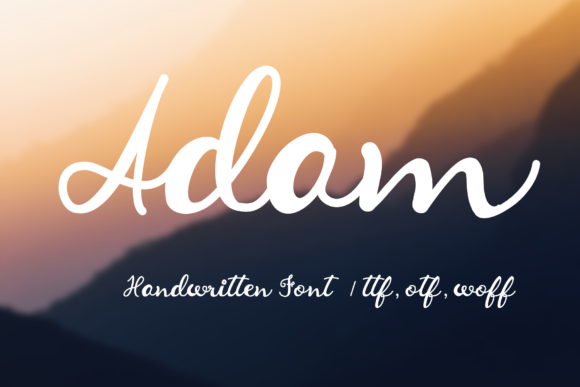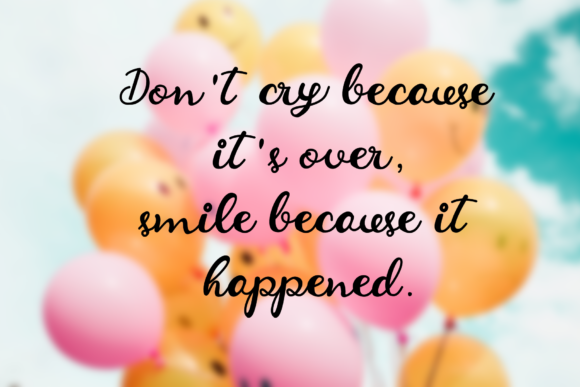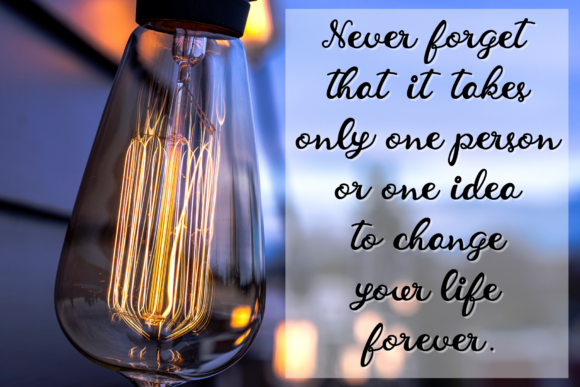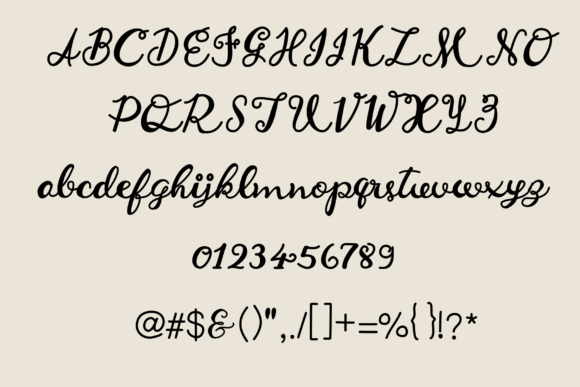
About Adam Font
Adam is a magical script font. It features an incredibly classic style, while still keeping a friendly feel. Adam is the perfect font for making original and outstanding designs.